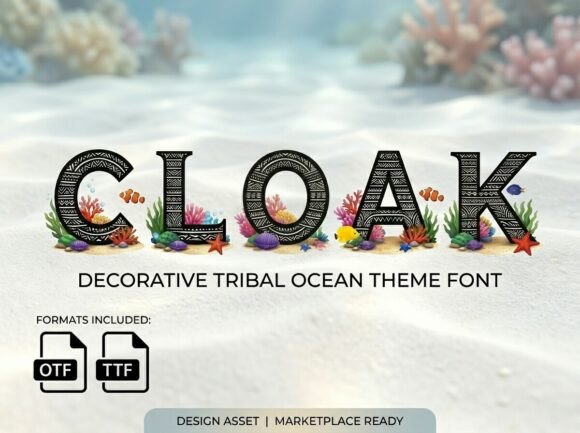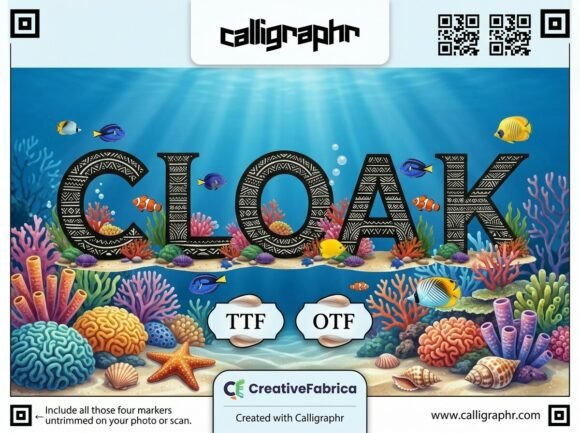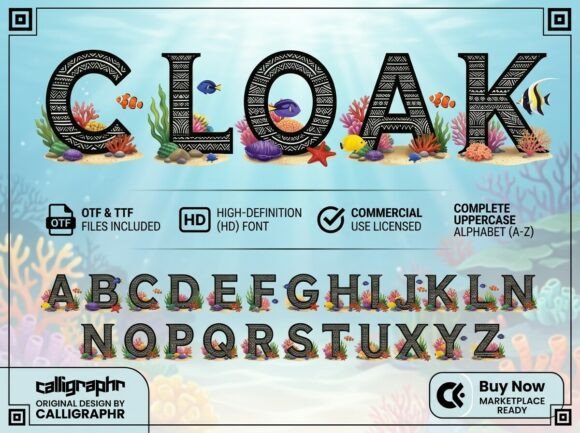
Introducing Cloak Font: A Stunning Decorative Display Font
Are you tired of using the same old fonts for your designs? Look no further than Cloak Font, a unique and artistic display font that’s sure to turn heads. With its strong visual personality and decorative elements, this font is perfect for creators who want to add a touch of elegance and sophistication to their work.
Cloak Font is designed to be the center of attention, featuring a bold and eye-catching style that’s perfect for headlines, logos, and decorative initials. Its unique artistic elements and strong visual personality make it an ideal choice for designers who want to break away from the ordinary and create something truly special.
One of the best things about Cloak Font is its versatility. This font is perfect for a wide range of design projects, including:
- Bold Headlines: Use Cloak Font to create attention-grabbing headlines that will draw readers in and make your content stand out.
- Artistic Logos: Create a unique and memorable logo for your business or brand with Cloak Font’s decorative and artistic style.
- Creative Packaging: Add a touch of elegance and sophistication to your packaging designs with Cloak Font’s bold and eye-catching style.
Why Choose Cloak Font?
So why choose Cloak Font over other display fonts on the market? Here are just a few reasons:
- Unique Style: Cloak Font features a unique and artistic style that’s sure to turn heads.
- Professional Finish: Despite its bold and decorative style, Cloak Font maintains a professional and polished finish that’s perfect for a wide range of design projects.
Tips for Using Cloak Font
Here are a few tips for getting the most out of Cloak Font:
- Use it Sparingly: Because of its bold and decorative style, it’s best to use Cloak Font sparingly to avoid overwhelming your design.
- Pair it with a Simple Font: Pair Cloak Font with a simple font to create a striking contrast and add visual interest to your design.
- Experiment with Colors: Don’t be afraid to experiment with different colors and textures to add depth and interest to your design.
Cloak Font is a stunning decorative display font that’s perfect for designers and crafters who want to add a touch of elegance and sophistication to their work. With its unique artistic elements, strong visual personality, and versatility, this font is sure to become a go-to choice for a wide range of design projects. So why wait? Purchase Cloak Font today and start creating stunning designs that demand attention!